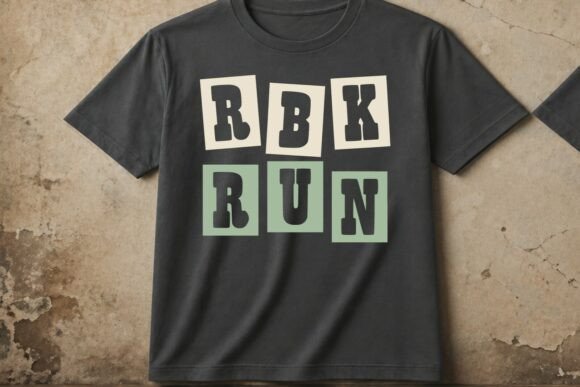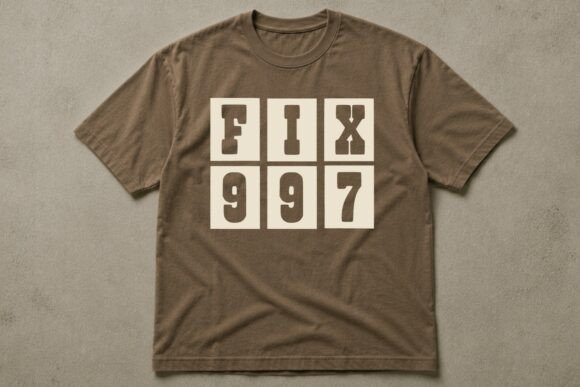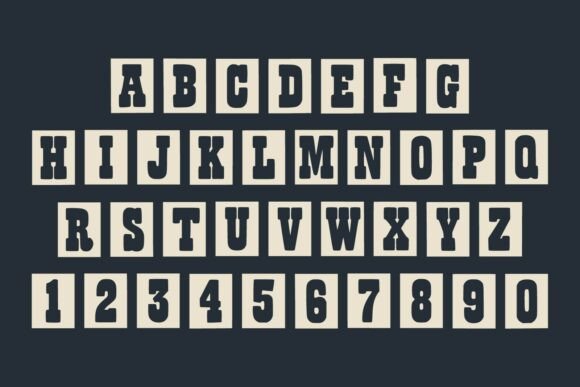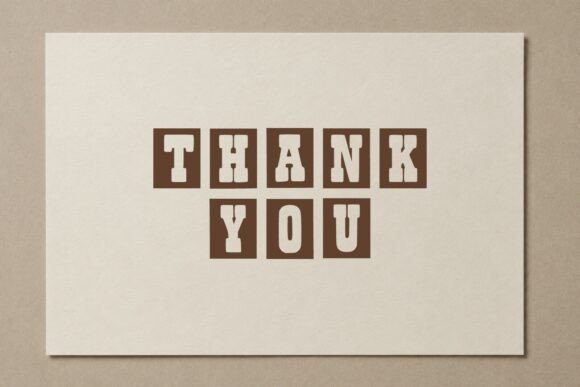
Introducing Block Western Font: A Bold and Unique Display Typeface
Are you looking for a font that can add a touch of rustic charm and old-west personality to your designs? Look no further than Block Western Font, a bold and unique display typeface inspired by classic western lettering and vintage signage. In this article, we’ll explore the features and benefits of Block Western Font, and how it can elevate your creative projects.
What is Block Western Font?
Block Western Font is a decorative western font designed with a block-style layout and strong character shapes. Its bold and striking appearance makes it perfect for headlines, posters, branding, logos, packaging, and creative design projects. The font’s unique blend of classic western lettering and vintage signage elements gives it a distinctive old-west personality that’s sure to grab attention.
Key Features of Block Western Font
- Bold and Unique Design: Block Western Font features a bold and unique design that’s perfect for making a statement. Its strong character shapes and block-style layout give it a striking appearance that’s sure to grab attention.
- Decorative Western Feel: The font’s decorative western feel makes it ideal for rustic, retro, and cowboy-themed visuals. Whether you’re designing a logo, poster, or packaging, Block Western Font can add a touch of old-west charm to your project.
- High Readability: Despite its bold and decorative design, Block Western Font maintains high readability, making it perfect for use in headlines, titles, and other display text.
- Versatility: Block Western Font is versatile and can be used in a variety of design projects, from branding and logos to posters and packaging.